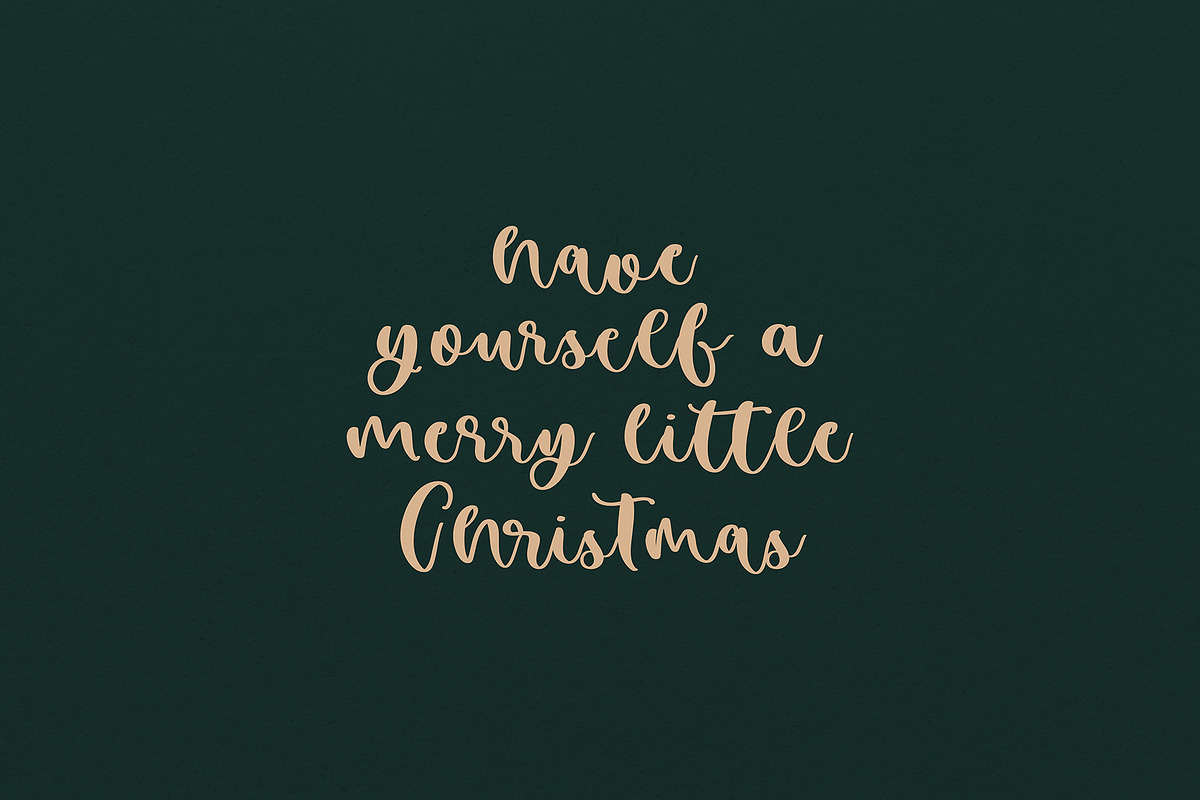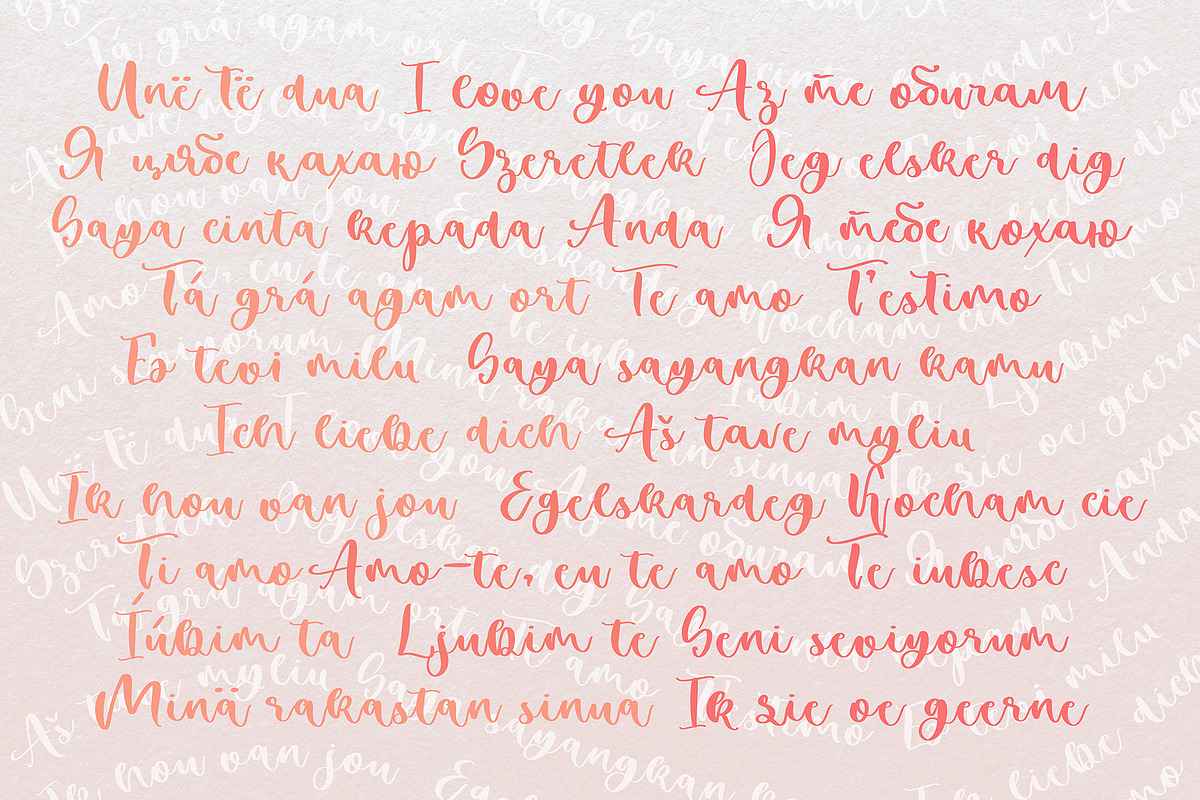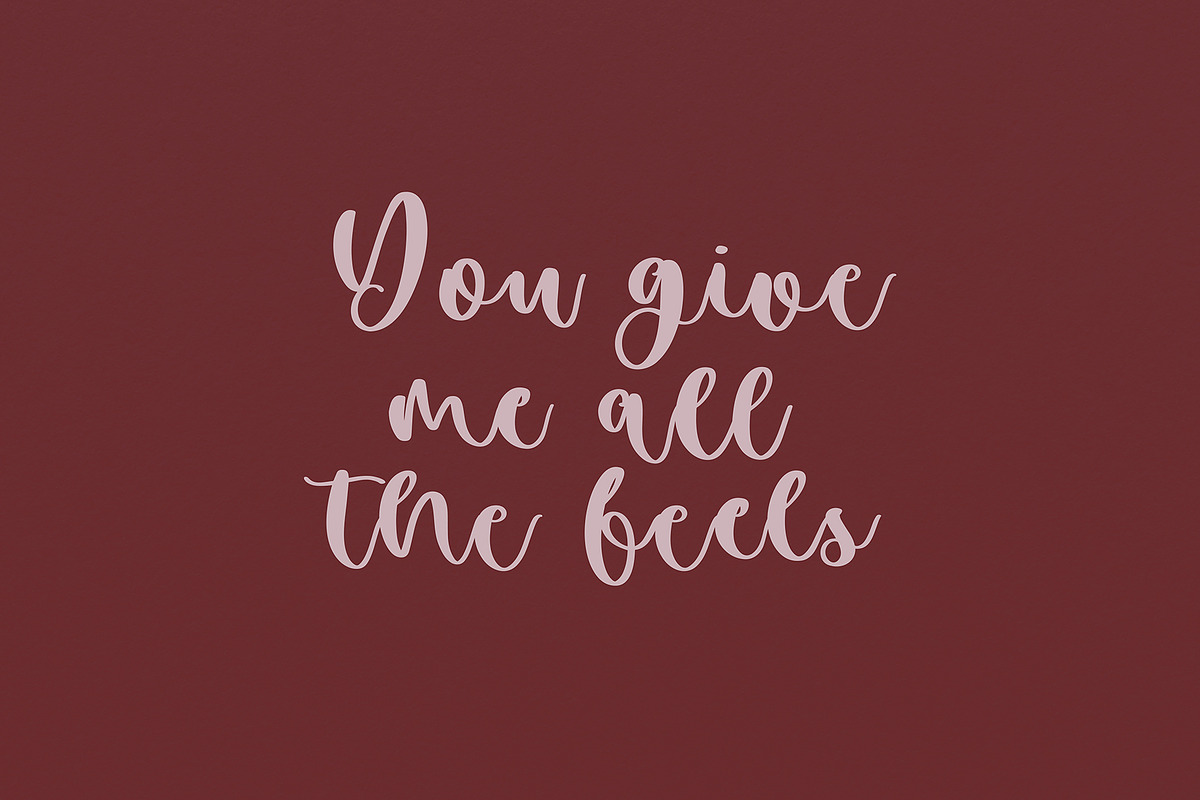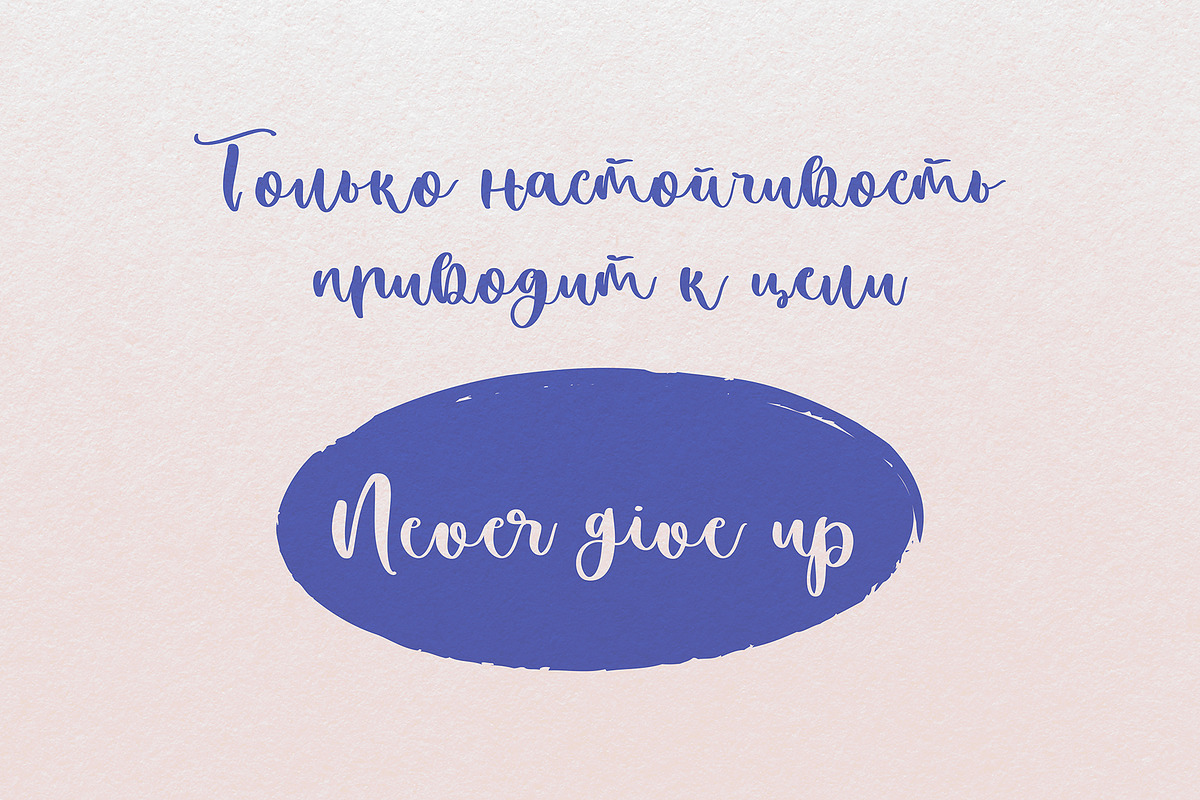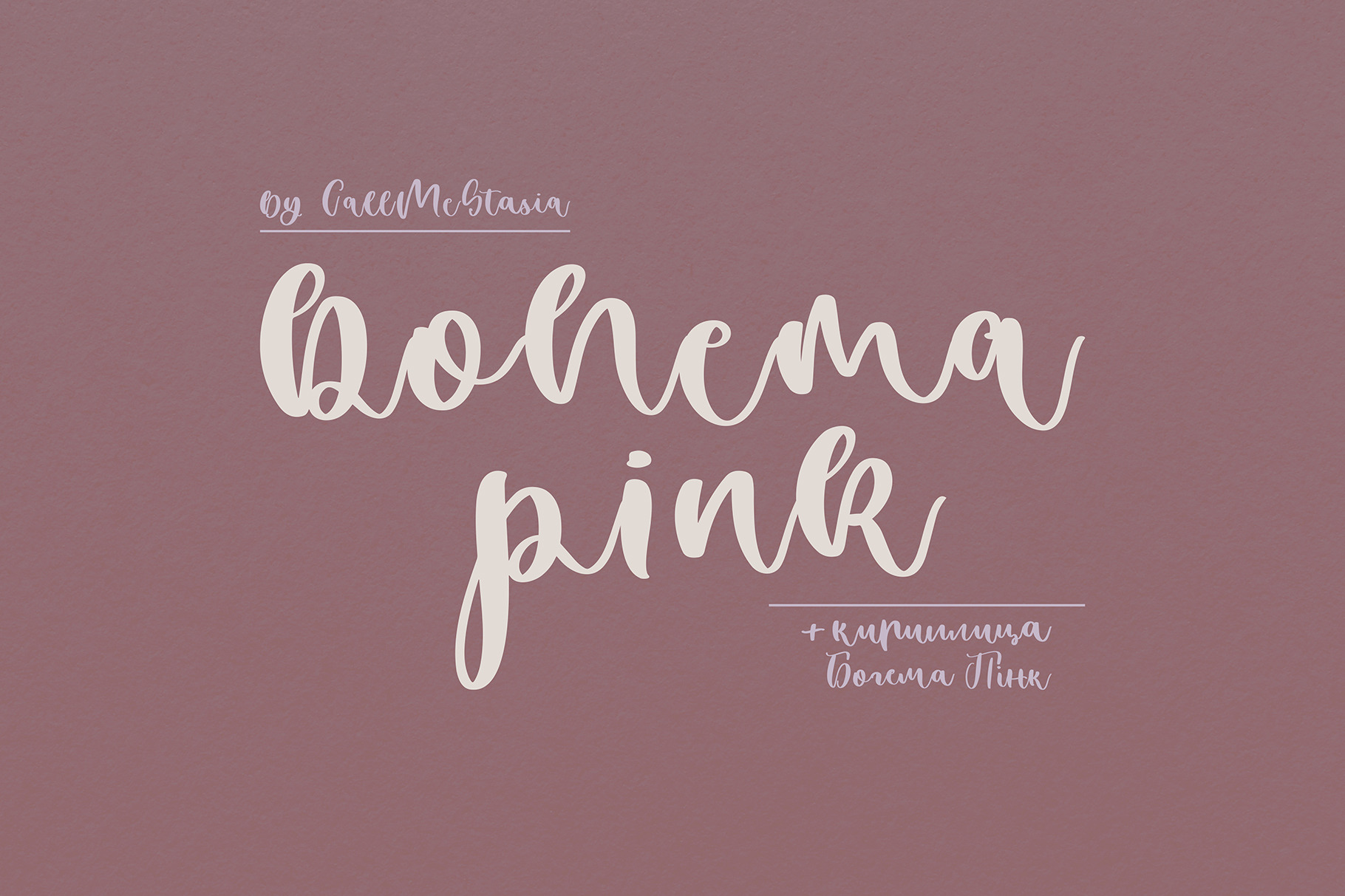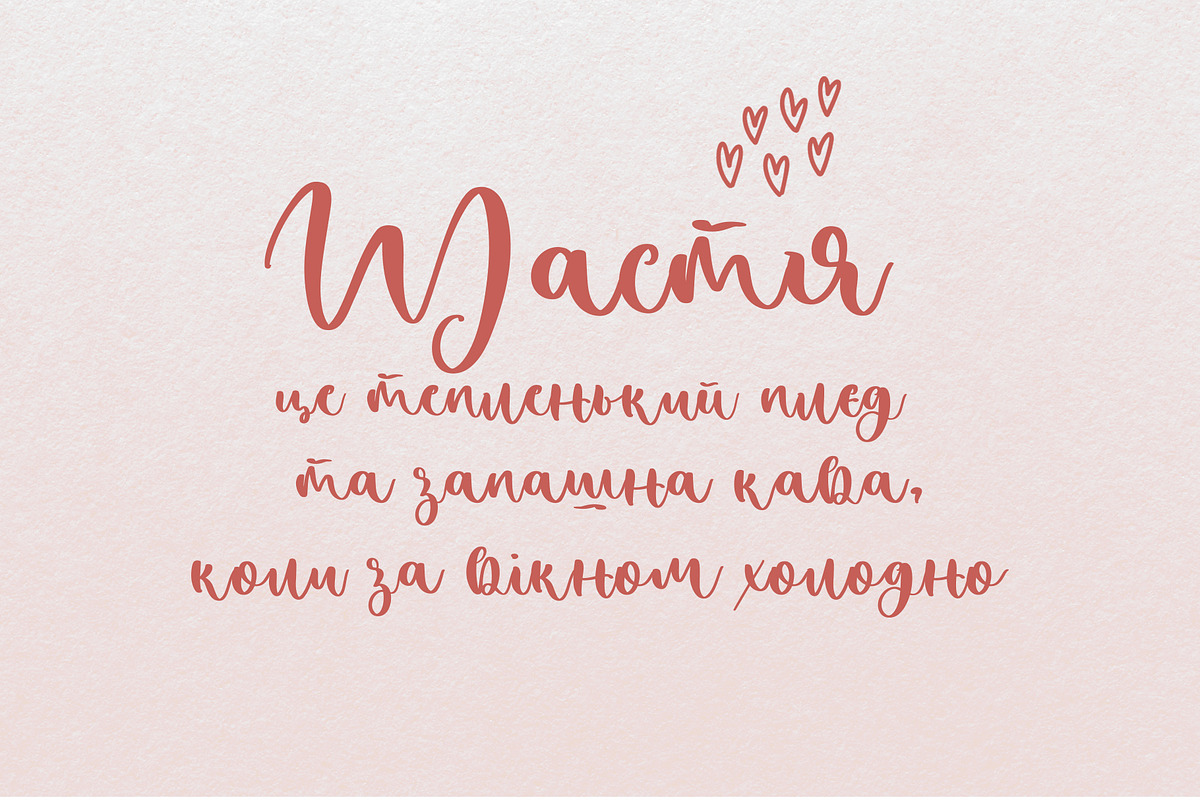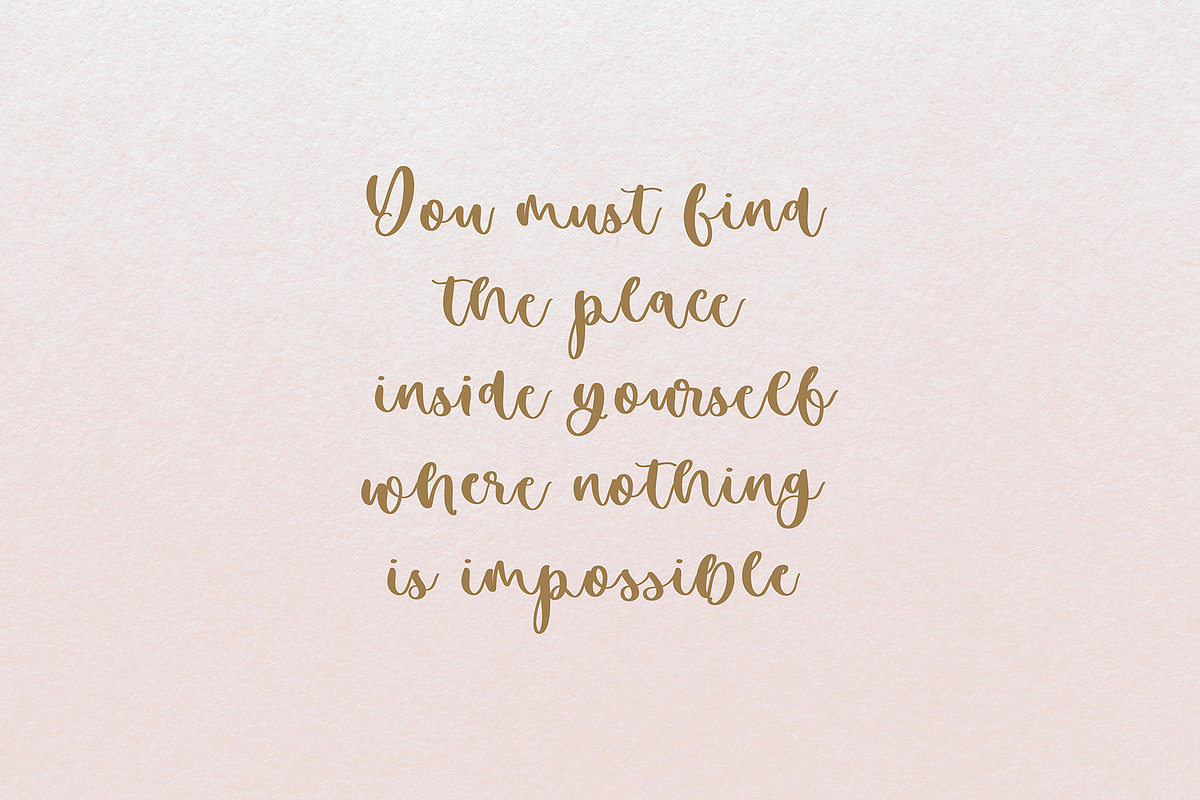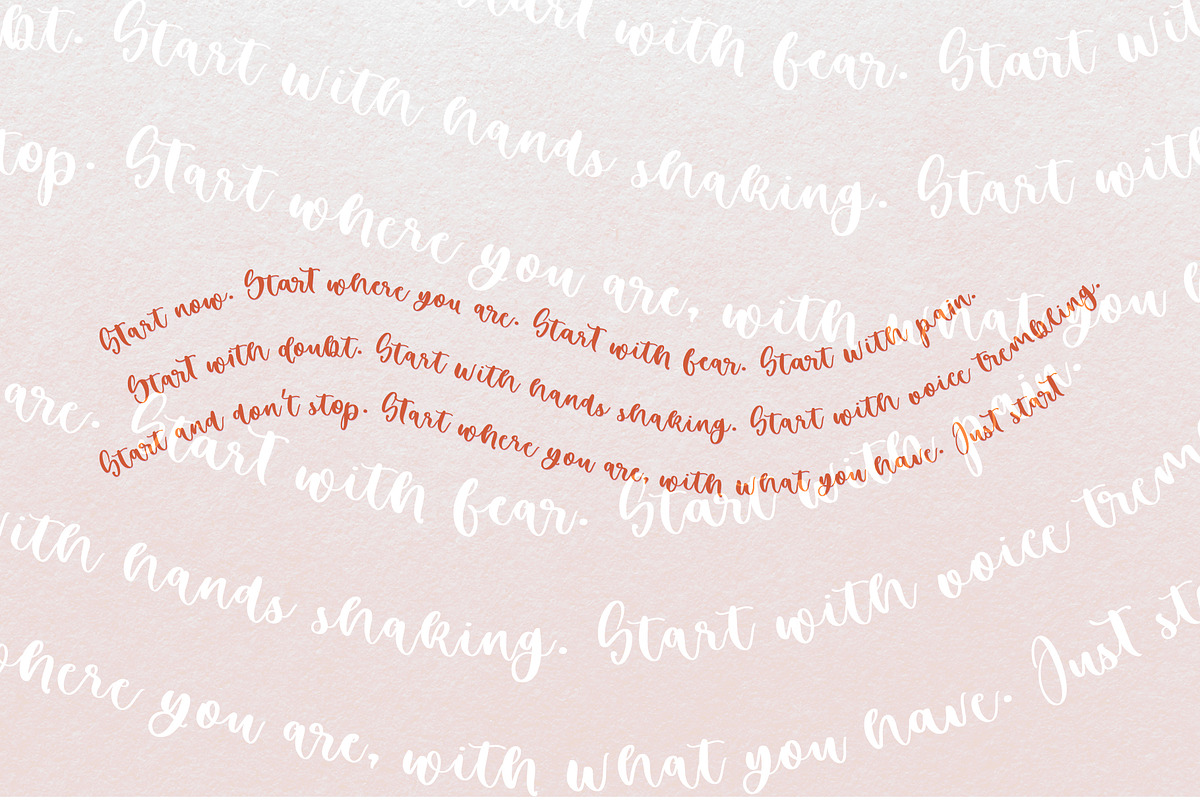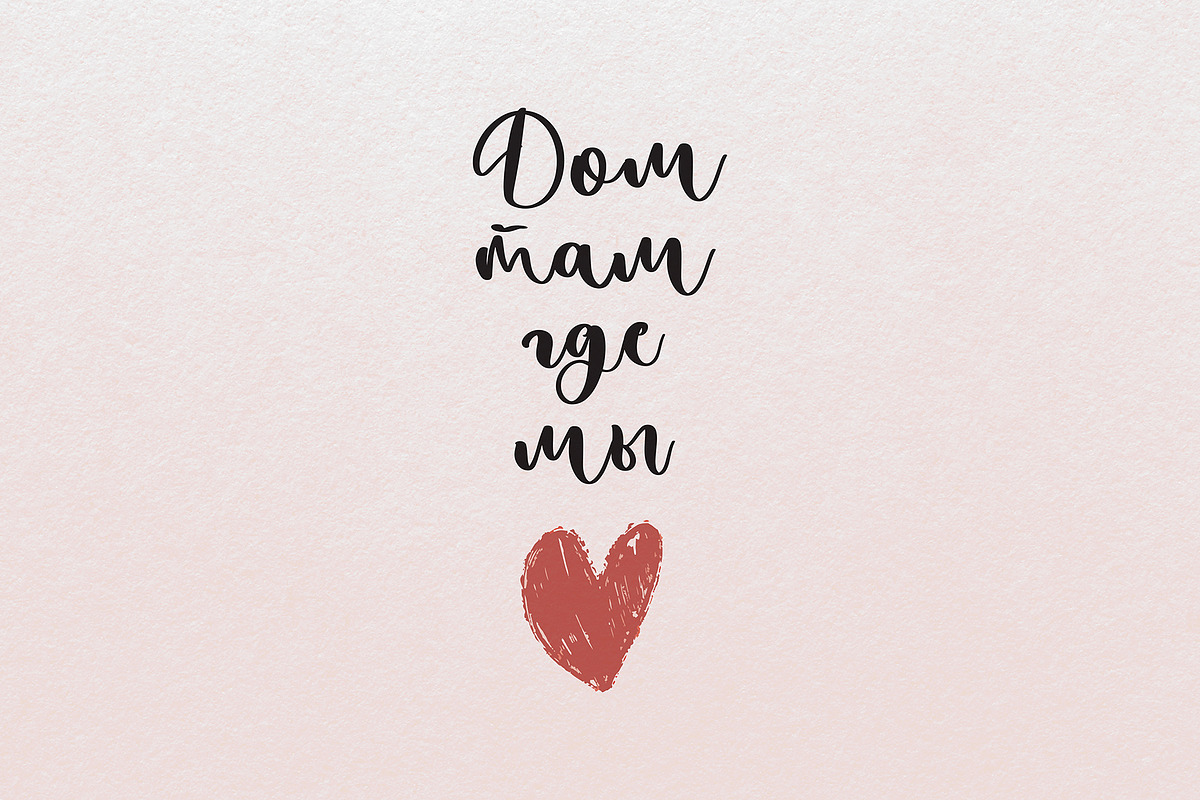
Bohema Pink Handwritten Font
Bohema Pink is a sweet hand-lettered script font. This cute modern calligraphy is perfect for branding, logos, greeting cards and prints, packing, t-shirts and other projects.
- Cyrillic